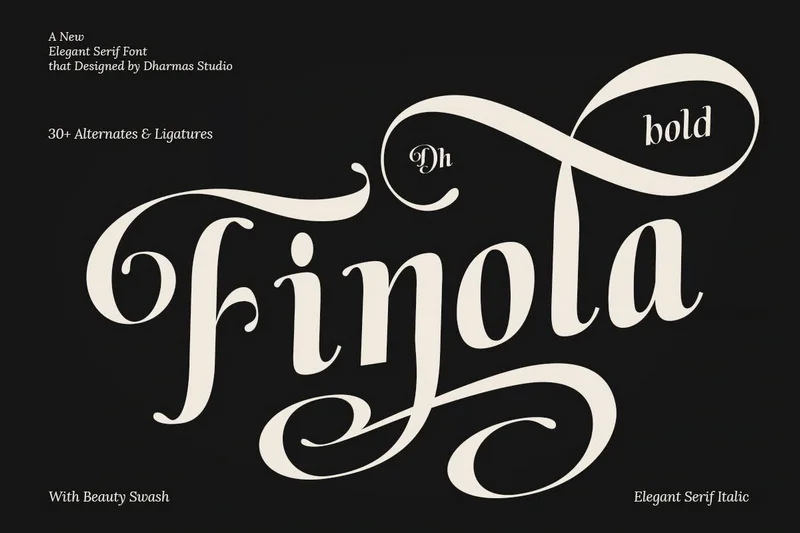
Finola – Swash Wedding Font
Finola Bold is a bold serif font with ornamental swashes — bold and beautifully adorned with detailed swashes. With high contrast and smooth curves, this weight is made to command attention in designs such as magazine covers and product packaging.
30+ Swash Alternates and Ligatures
Letters, numbers, symbols, punctuation, special alternates
The bold style enhances Finola’s ornamental features while preserving its clear, classical structure, resulting in a serif font with a clean, versatile look.